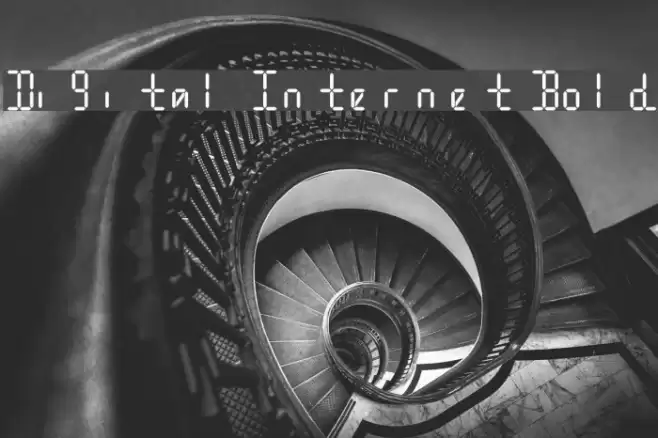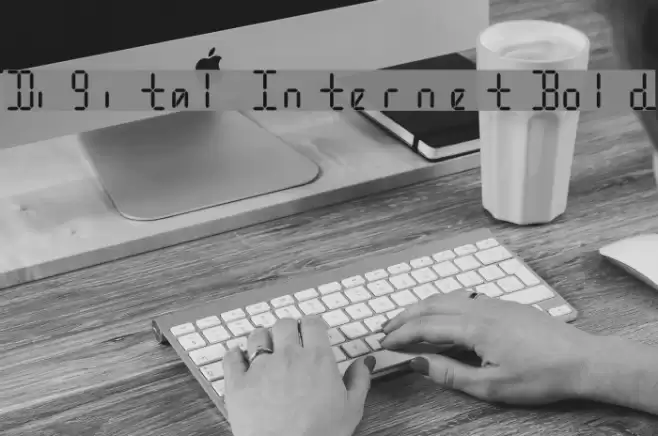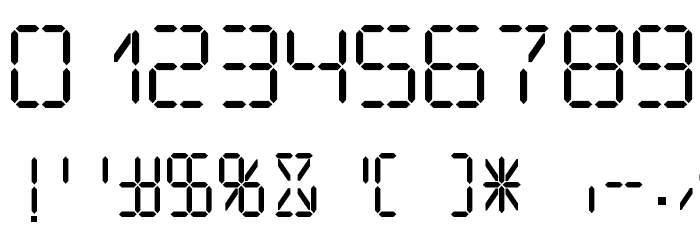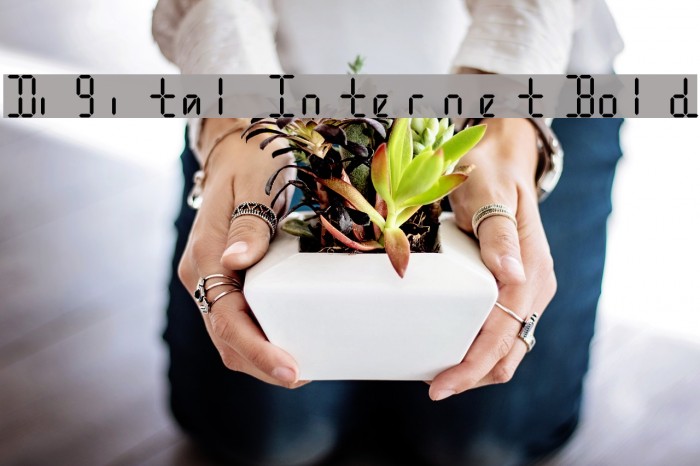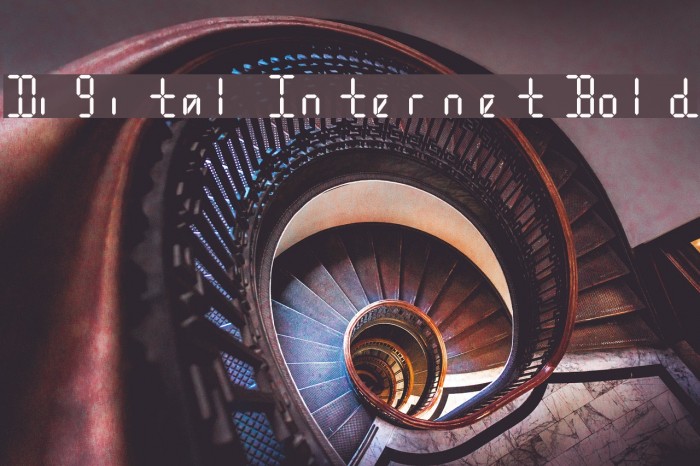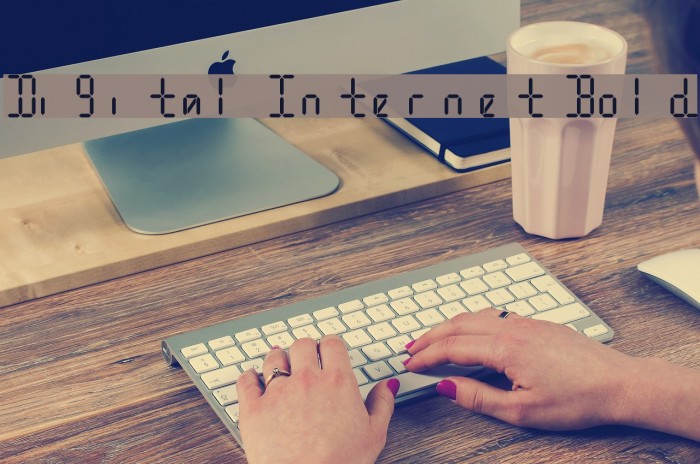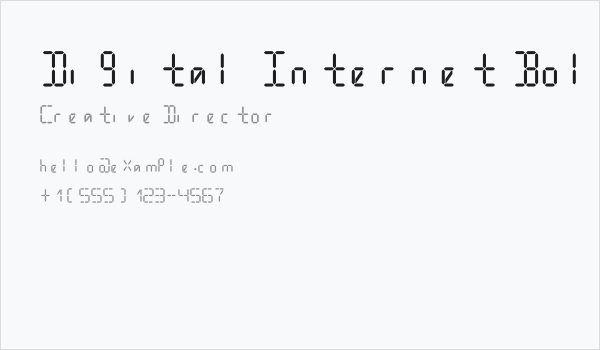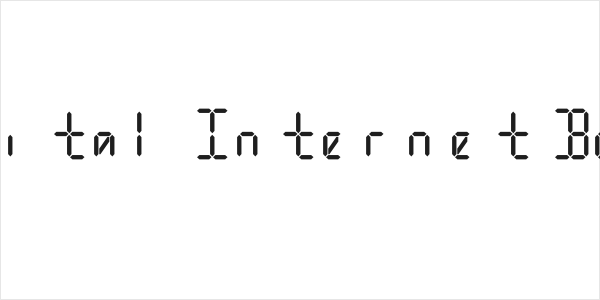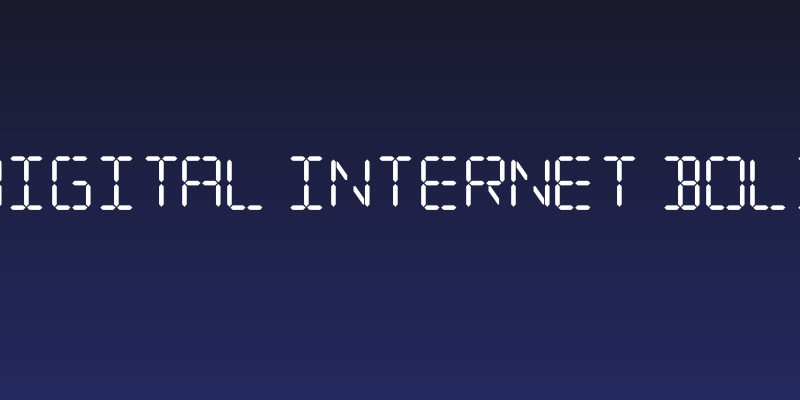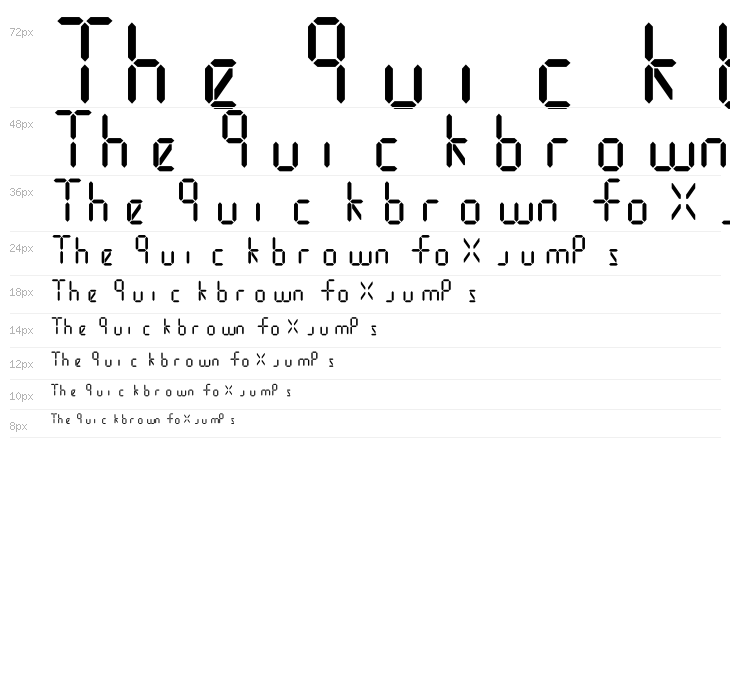
Digital Internet Bold Font
Digital Internet Bold Description
This font features a digital, segmented style reminiscent of classic LED displays. Each character is constructed from a series of geometric segments, creating a futuristic and technological appearance. The uppercase and lowercase letters maintain a consistent design, with the lowercase being slightly smaller in scale. Numbers and special characters follow the same segmented pattern, ensuring uniformity across all glyphs. The font's design is highly legible, making it suitable for digital displays or projects that require a modern, tech-inspired aesthetic. Its unique style captures the essence of digital technology, making it ideal for use in contexts where a digital or retro-futuristic theme is desired.
A segmented, digital-style font inspired by classic LED displays from Uncategorized fonts.
- Proposed Projects: Ideal for digital displays, tech-themed designs, retro-futuristic projects, and electronic device interfaces.
- Use Case: Headlines, Logos, Digital displays